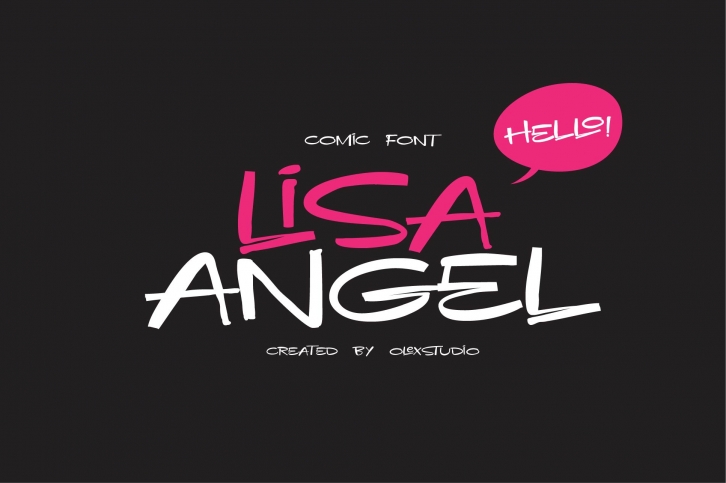
LISA ANGEL is a great font that was designed by OlexStudio. Imagine the amount of combinations you can create using this font! The archive is 12.15 MB and it was released on January 7, 2019. LISA ANGEL looks beautiful on wedding invitations, greeting cards, logos, posters, labels, t-shirt designs, logos, business cards and is perfect for use in ink or watercolor works, fashion, magazines, packaging and food menus, children's books and more!